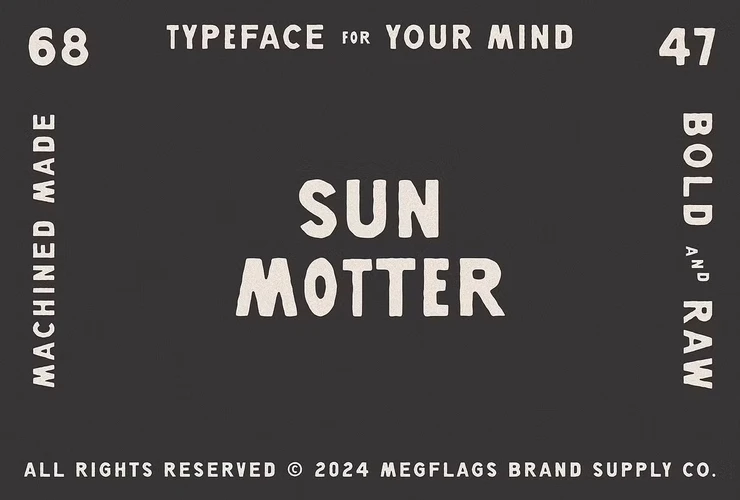
Sun Motter: The Vintage Modern Font That Pops
Sun Motter is not just another typeface; it’s a bold, raw, and vintage-modern font that brings an edgy flair to any design project. Crafted by megflags, this font stands out with its unique character and versatility, making it an essential tool for designers looking to create eye-catching and memorable visuals.
Bold and Raw: A Unique Design
Sun Motter is characterized by its bold strokes and raw edges, giving it a distinctive look that demands attention. This font is perfect for those moments when you need to make a statement louder than your neighbor’s dog. Its design exudes a vintage-modern charm, reminiscent of retro aesthetics but with a contemporary twist. Whether you’re crafting posters, branding, or any other creative project, Sun Motter delivers a pop that is both stylish and impactful.
Versatility and Charm
One of the standout features of Sun Motter is its versatility. It effortlessly transitions from playful and bold to elegant and sophisticated, making it suitable for a wide range of design applications. From posters that need to shout a message to branding that requires a smooth and polished look, this font is the go-to choice for designs that need to stand out.
Sun Motter’s unique style and character make it a fantastic alternative to more traditional fonts like Helvetica. Its boldness and rawness add a touch of authenticity and personality to any design, making it an excellent choice for creatives who want to infuse their work with a distinctive flair.
Why Choose Sun Motter?
Bold and Attention-Grabbing: Perfect for designs that need to make a statement.
Versatile: Suitable for various design projects, from posters to branding.
Vintage Modern Charm: Combines retro aesthetics with a contemporary twist.
Sun Motter is more than just a font; it’s a design statement. Its bold strokes and raw edges make it the perfect partner for creating designs that pop and leave a lasting impression.